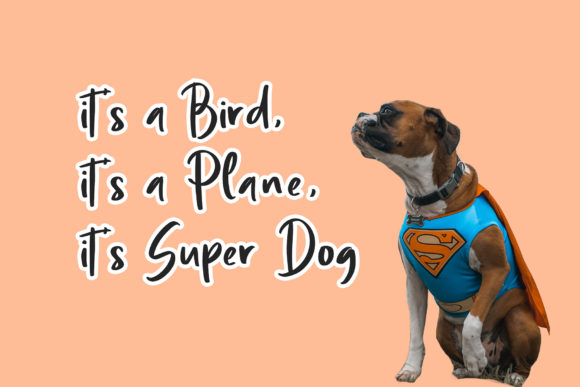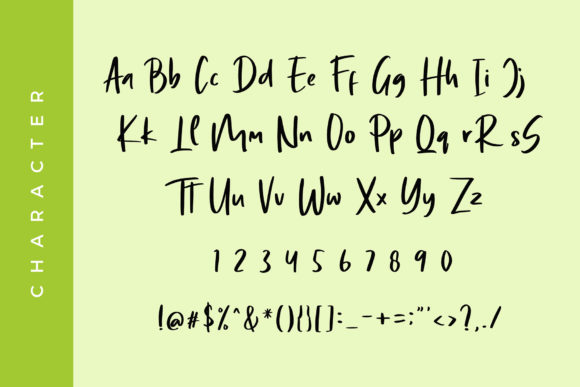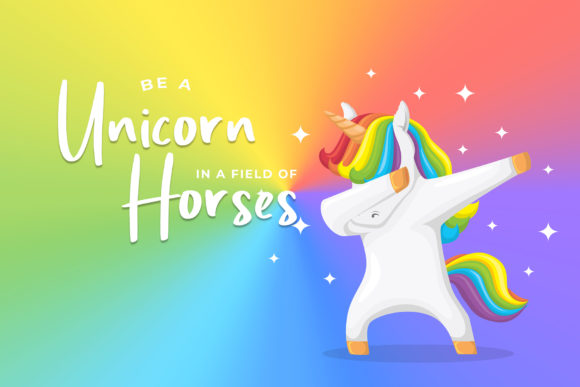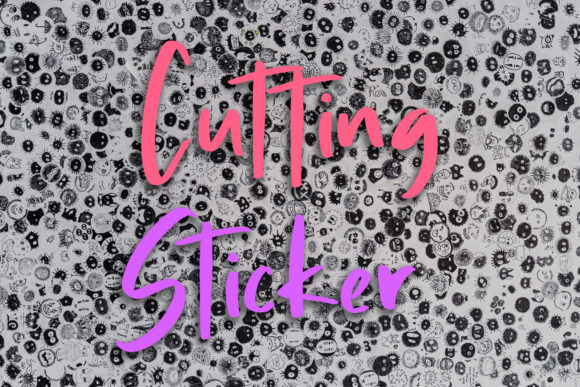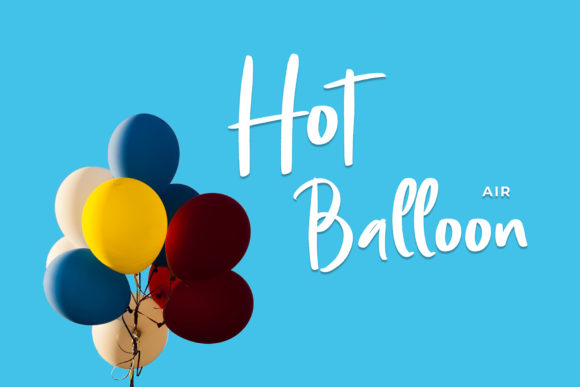
Introduction to Mogie Font
Remember that moment when you stumbled upon the perfect design element, and it instantly elevated your creative project? For designers, finding the right font can be a game-changer. It’s like discovering a hidden treasure that brings your ideas to life.
One such treasure is the Mogie Font – a delightful, handwritten font that adds a playful touch to any design. With its high-quality lines and unique charm, Mogie Font is a must-have design resource for creatives looking to add a personal touch to their work. Whether you’re designing a logo, creating a social media graphic, or crafting a beautiful invitation, Mogie Font is the perfect addition to make your design stand out.
Key Features of Mogie Font
- Unique and creative design: The Mogie Font boasts a distinctive and creative design that can add a touch of personality to your work, setting it apart from more generic fonts.
- High-quality design: The Mogie Font is designed with high-quality in mind, featuring clean lines, elegant typography, and a professional aesthetic.
Honest Review: Mogie Font
I recently had the chance to work with the Mogie Font, a free download that’s quickly become a staple in my design arsenal. This high-quality font is perfect for any creative project that needs a unique touch.
Here are some things that work well with the Mogie Font:
- ✨ The Mogie Font offers a clean and modern aesthetic, making it ideal for digital designs and web projects.
- ✨ The font’s transparent background makes it easy to use with a variety of backgrounds and colors.
- ✨ The Mogie Font is highly customizable, allowing you to adjust the font’s size, color, and style to fit your design needs.
While the Mogie Font is a great resource, there are a few limitations to consider:
- ⚠️ The font may not be suitable for print designs, as it can appear pixelated when scaled up.
- ⚠️ Some users may find the font’s style a bit too bold or overpowering, so be sure to use it sparingly.
Overall, I’m impressed with the Mogie Font’s versatility and ease of use. It’s a great addition to any design resource library and is sure to help take your creative projects to the next level.
Mogie Font
The Mogie Font is a unique and versatile design resource, ideal for any high-quality creative project that requires a touch of elegance. This free download is perfect for designers and non-designers alike, offering a range of styles and layouts to suit various needs.
The Mogie Font is perfect for creating invitations, posters, social media graphics, and any other design project that requires a touch of sophistication. Its high-quality design and transparent background feature make it an ideal choice for designers and non-designers alike.
Is the Mogie Font suitable for designs with transparent backgrounds?
Yes, the Mogie Font features a transparent background, making it ideal for designs that require a high level of customization and flexibility. You can easily place the font on top of any image or background without worrying about any unwanted color or texture.